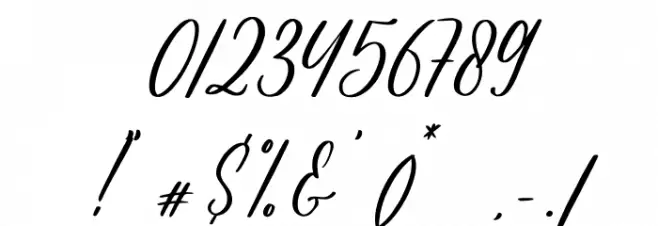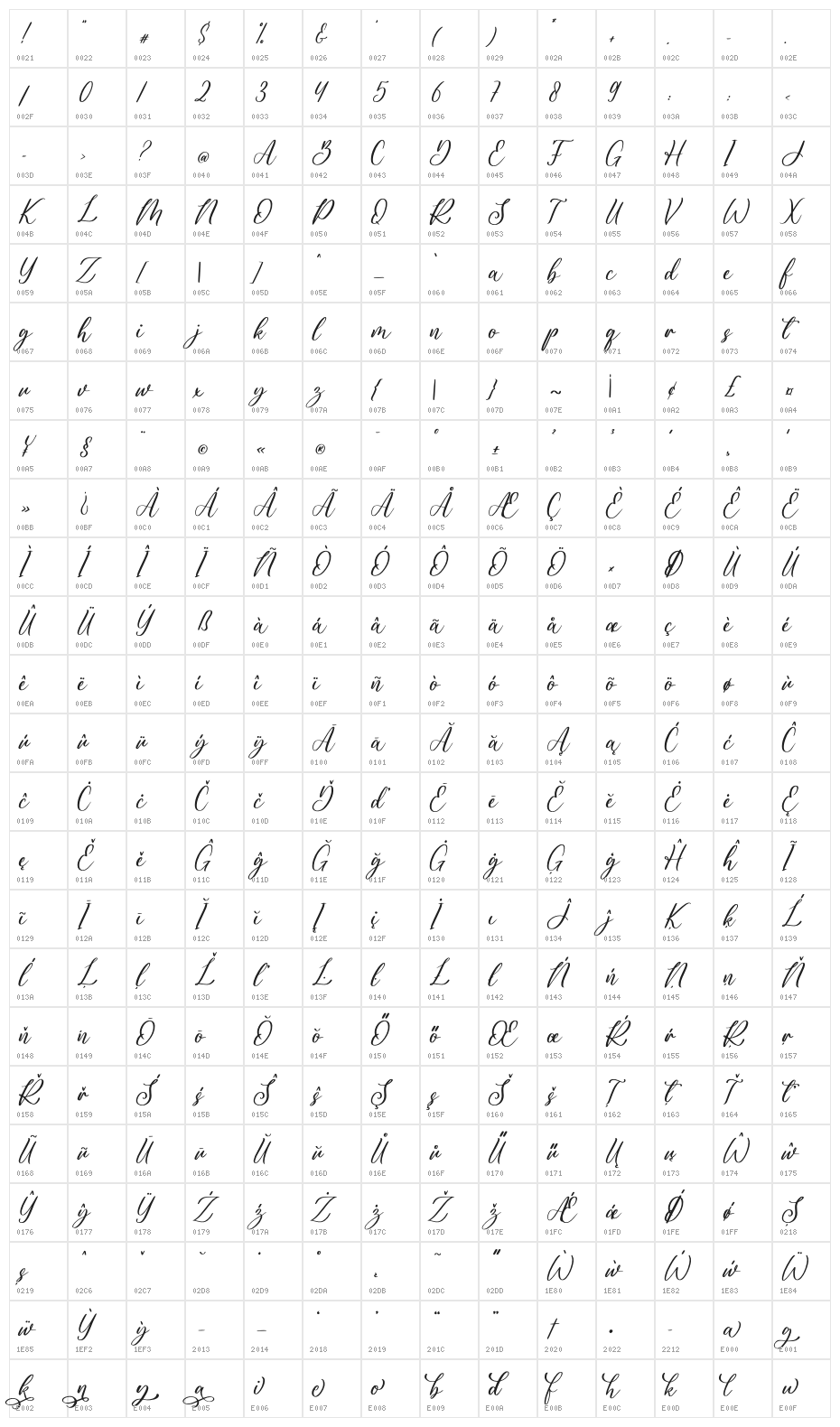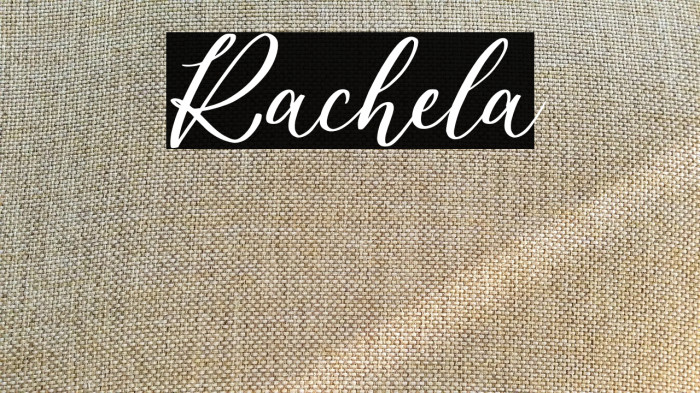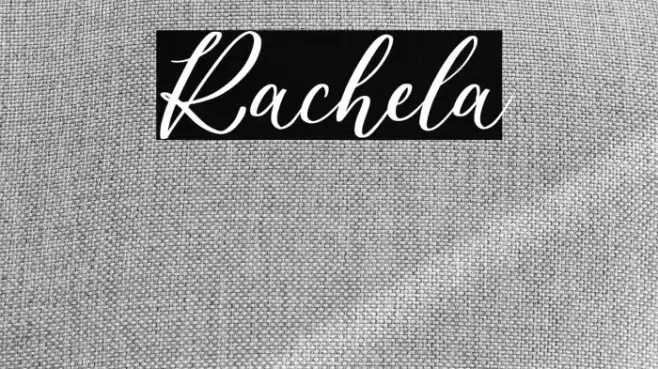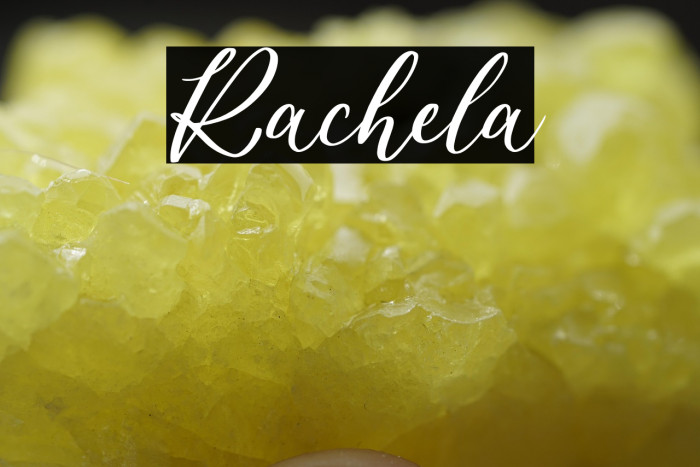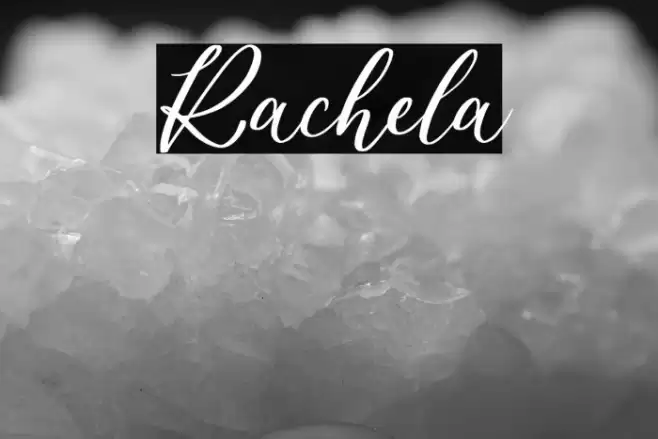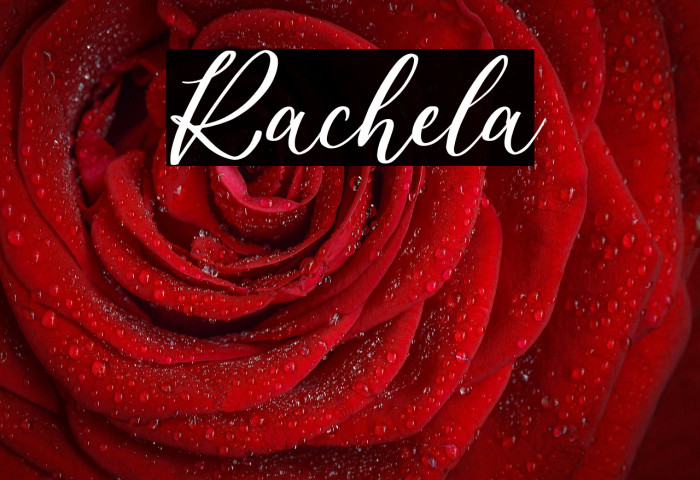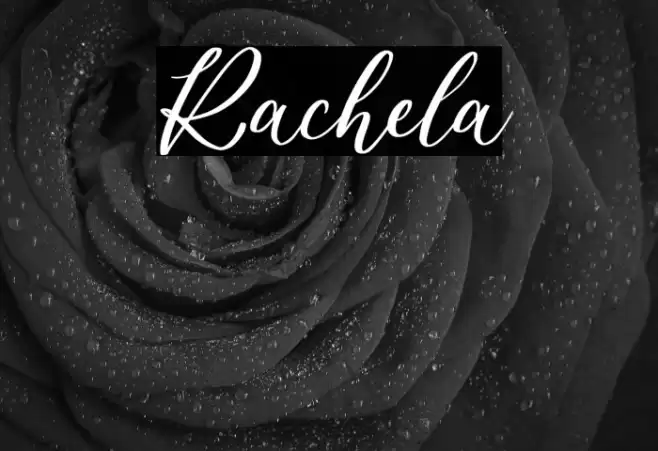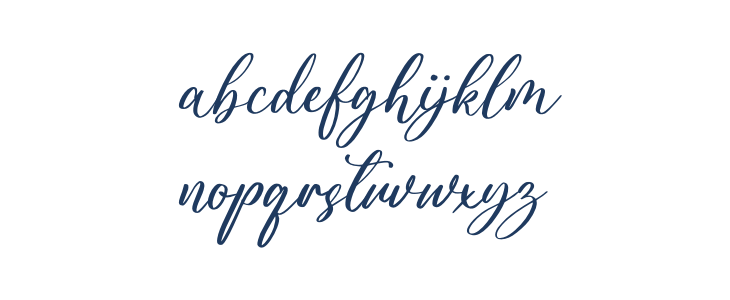
Rachela Font
Rachela Description
This elegant script font features fluid, cursive strokes that exude a sense of sophistication and grace. The uppercase letters are characterized by sweeping curves and flourishes, while the lowercase letters maintain a consistent flow, enhancing readability. The numerals are designed with a similar flair, ensuring they complement the overall aesthetic. Special characters are thoughtfully crafted to match the font's style, making it versatile for various applications. The font's design is reminiscent of traditional calligraphy, yet it maintains a modern touch, making it suitable for both classic and contemporary projects.
| Overall Style | Elegant, Modern |
| Proposed Projects | Ideal for wedding invitations, elegant branding, greeting cards, and upscale packaging. |